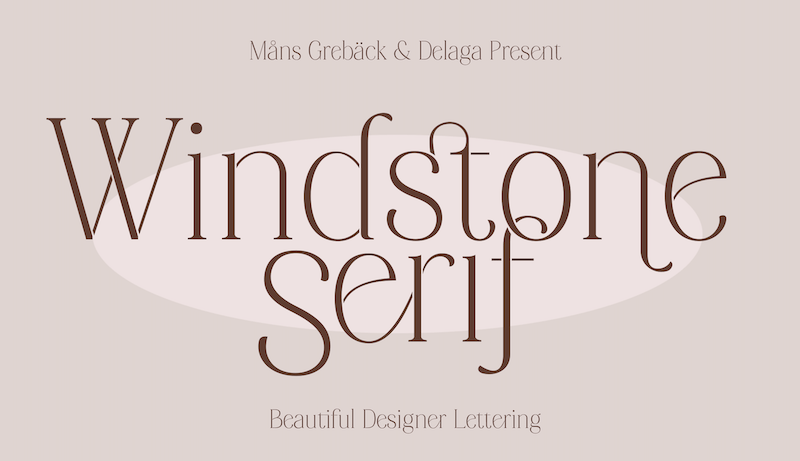
Font name: | Windstone Serif |
NOTE: This font is for PERSONAL USE ONLY! To purchase a commercial license, visit: http://mn.sg/windstone-serif Windstone Serif is a fine and delicate typeface that exudes luxury and romance. With its natural and leafy letterforms, this beautiful font embodies the essence of art and fashion, making it perfect for projects that require a touch of sophistication and elegance. For questions, please visit www.mansgreback.com/faq |